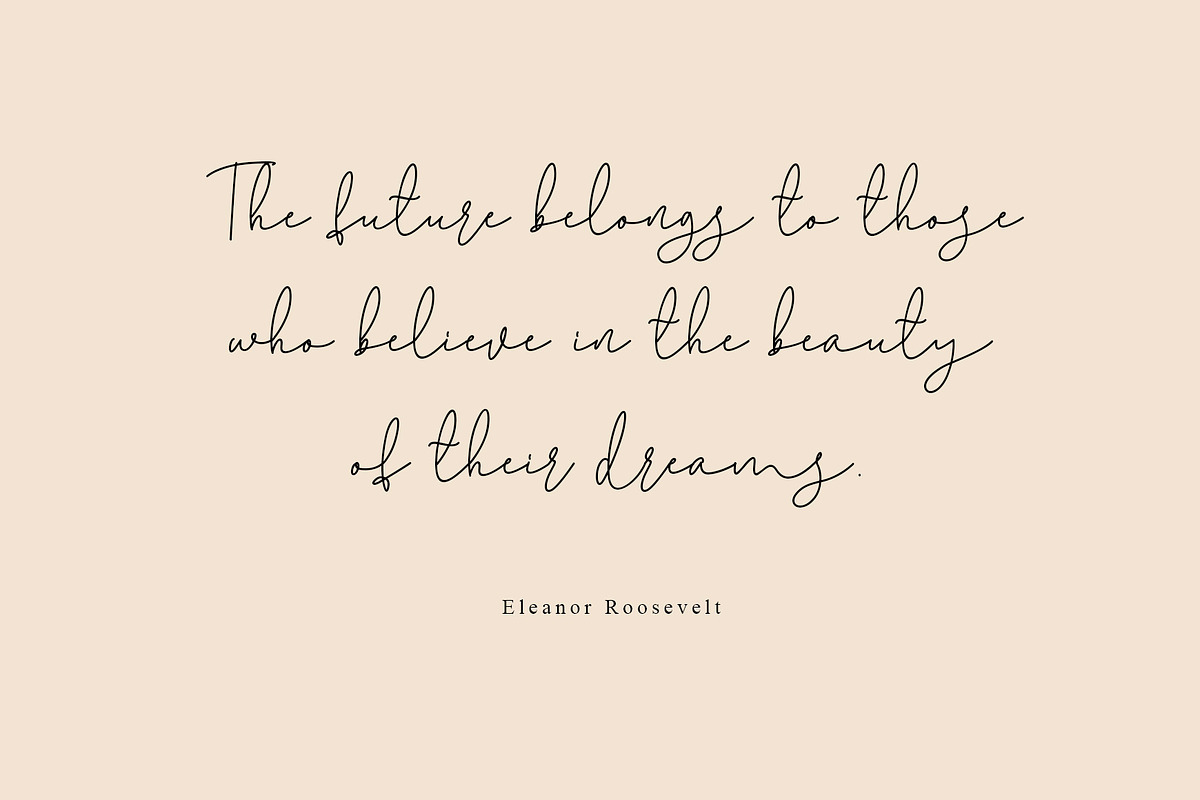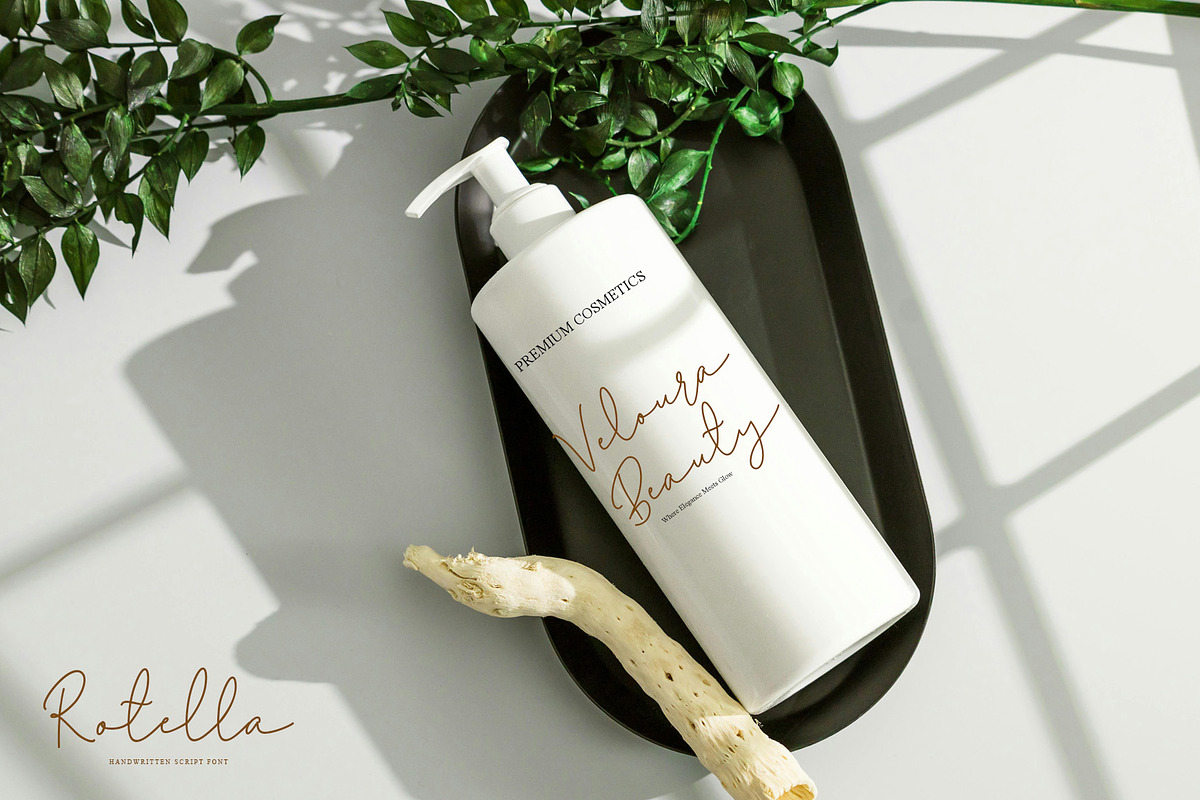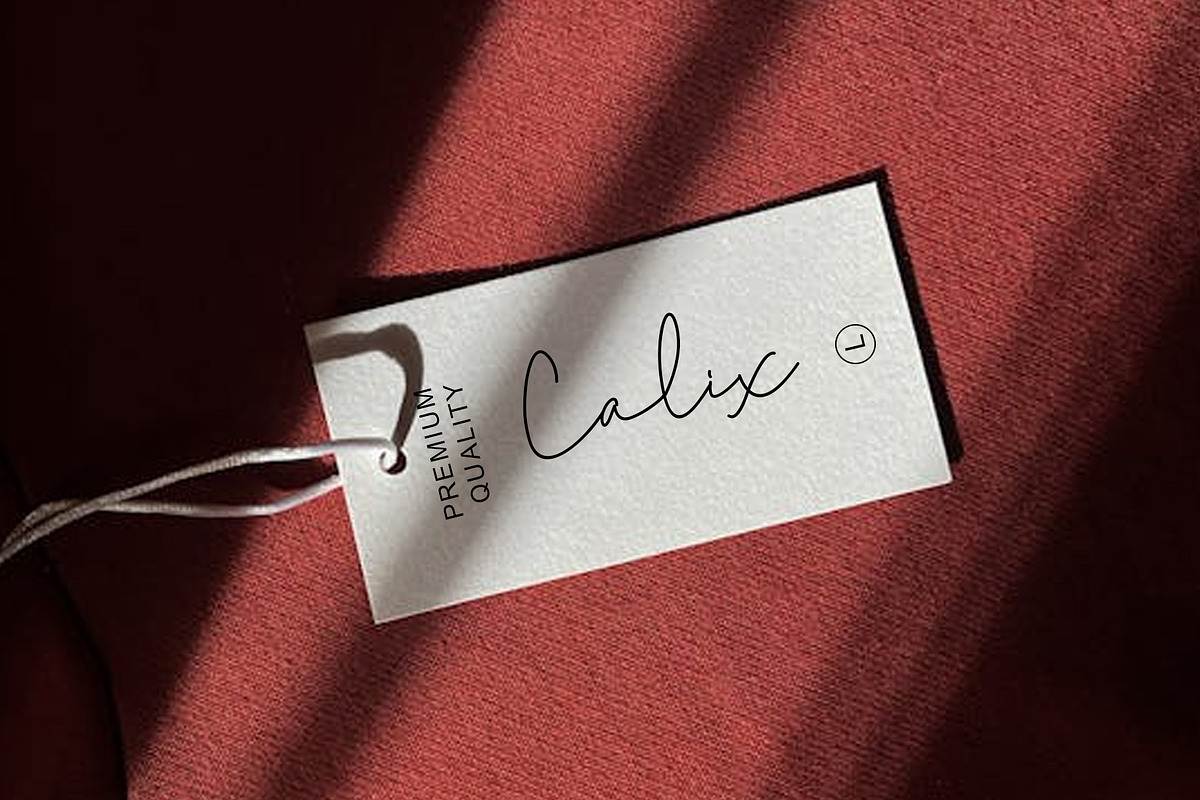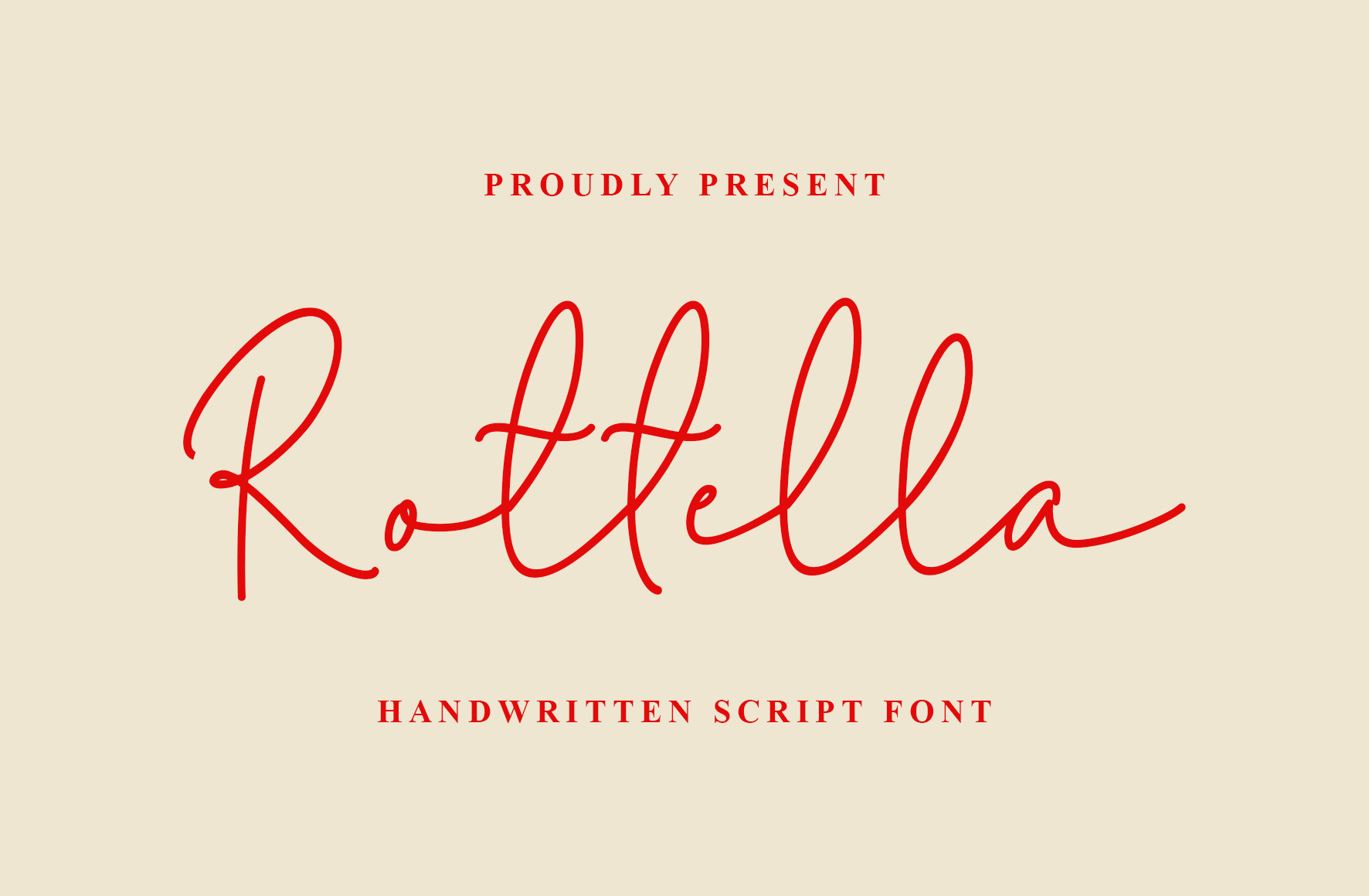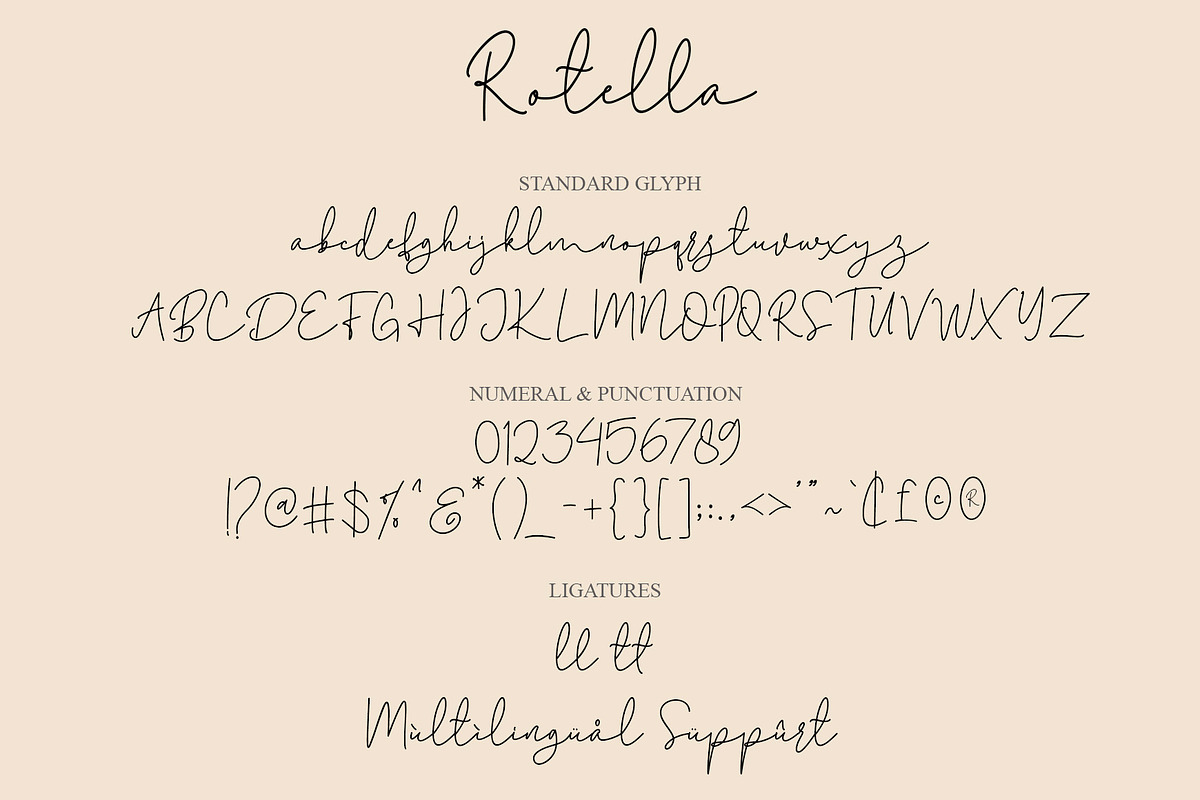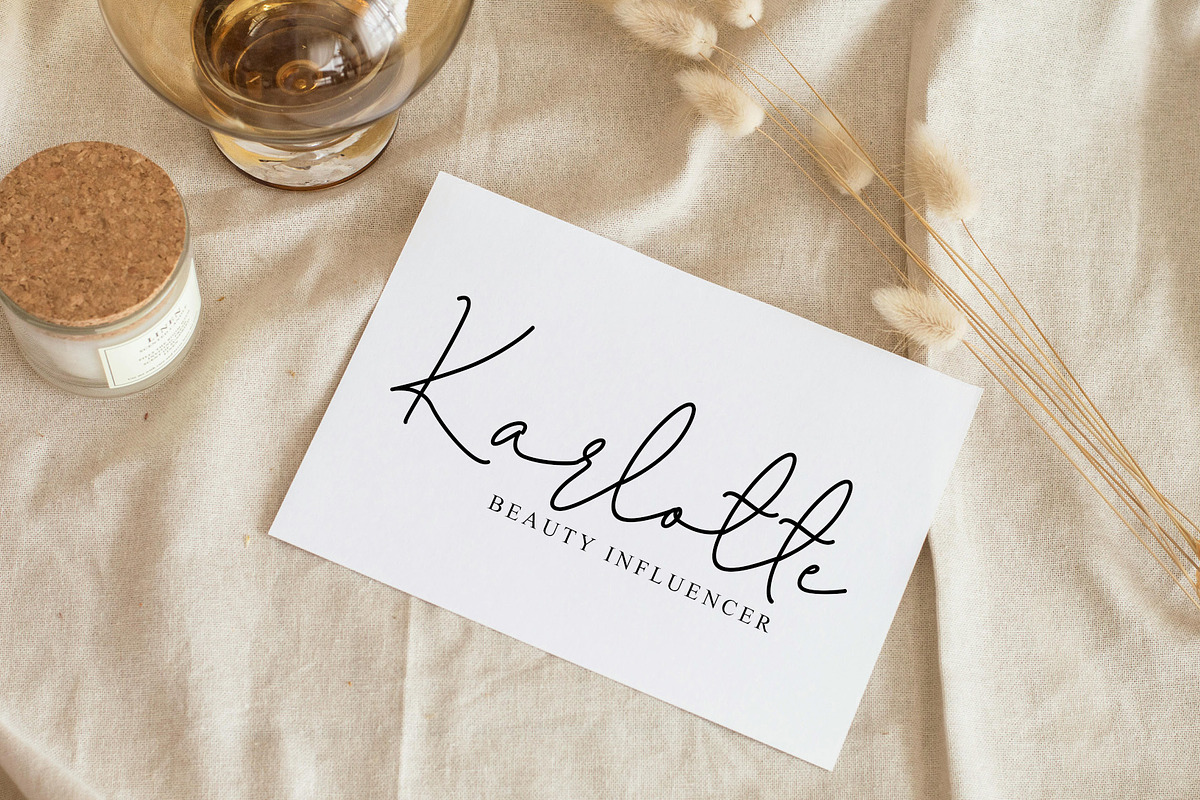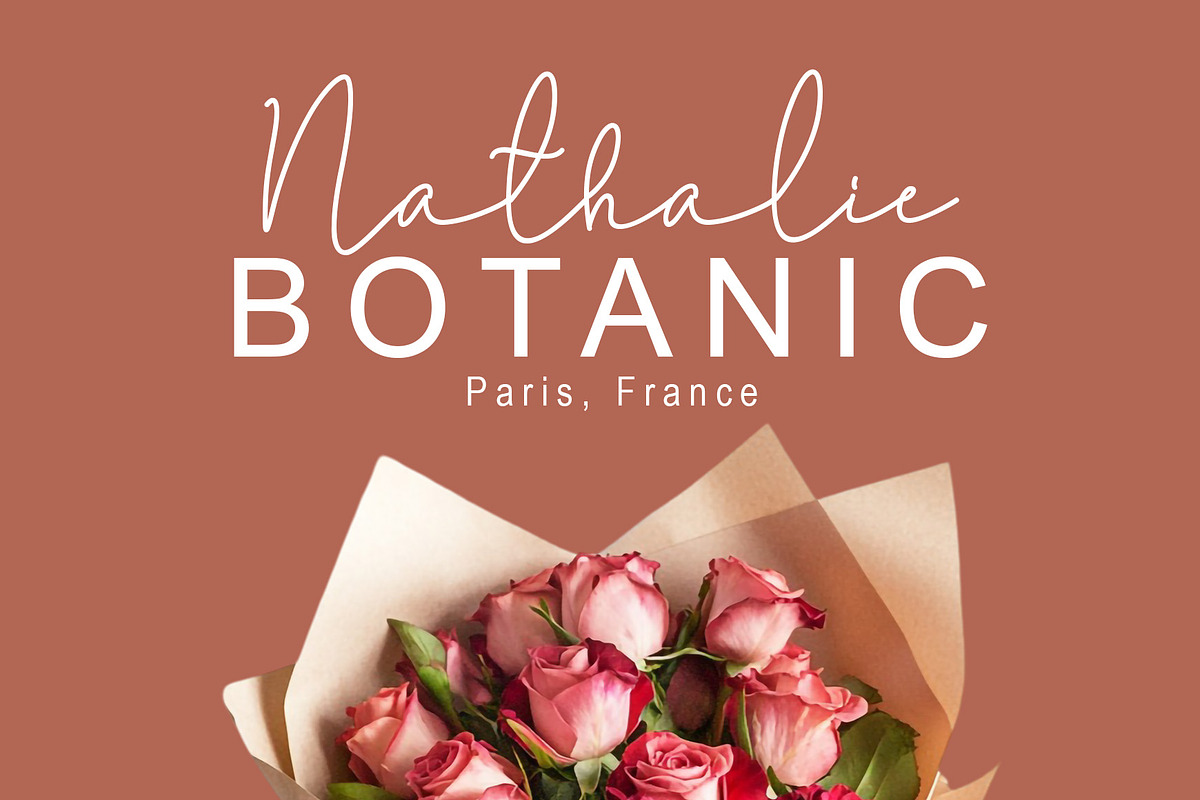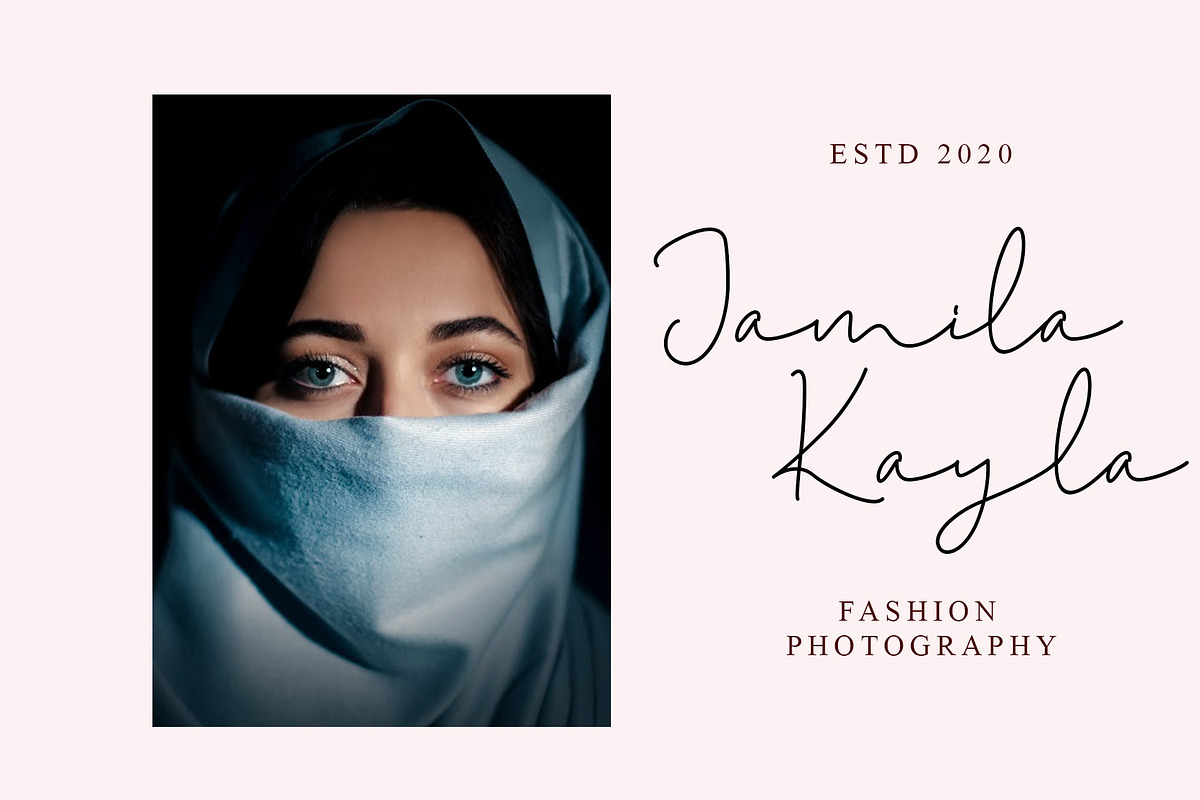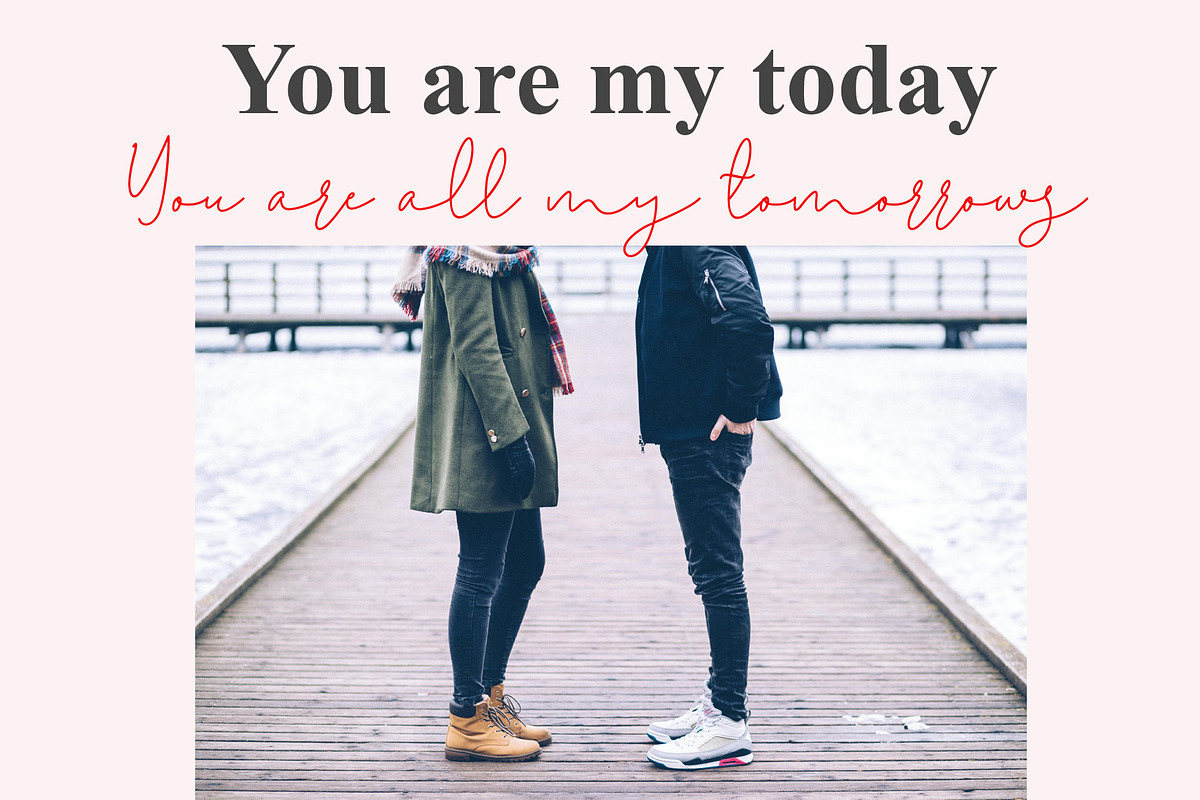
Rotella Monoline Handwritten Font
Hello everyone, allow me to introduce Rotella, a monoline handwritten font that features a simple and natural cursive style, perfect for creating elegant and authentic designs.
Rotella is suitable for a wide range of applications, including branding, labels, watermarks, photography, wedding invitations, stationery, social media posts, advertising, signatures, packaging, product design, and more.
- Letters, numbers, symbols, punctuation and ligatures
- Fonts include multilingual support